Discover a curated collection of happy birthday font styles optimized for invitations, banners, and social graphics. Use our generator to create expressive, readable type that matches your celebration's mood.
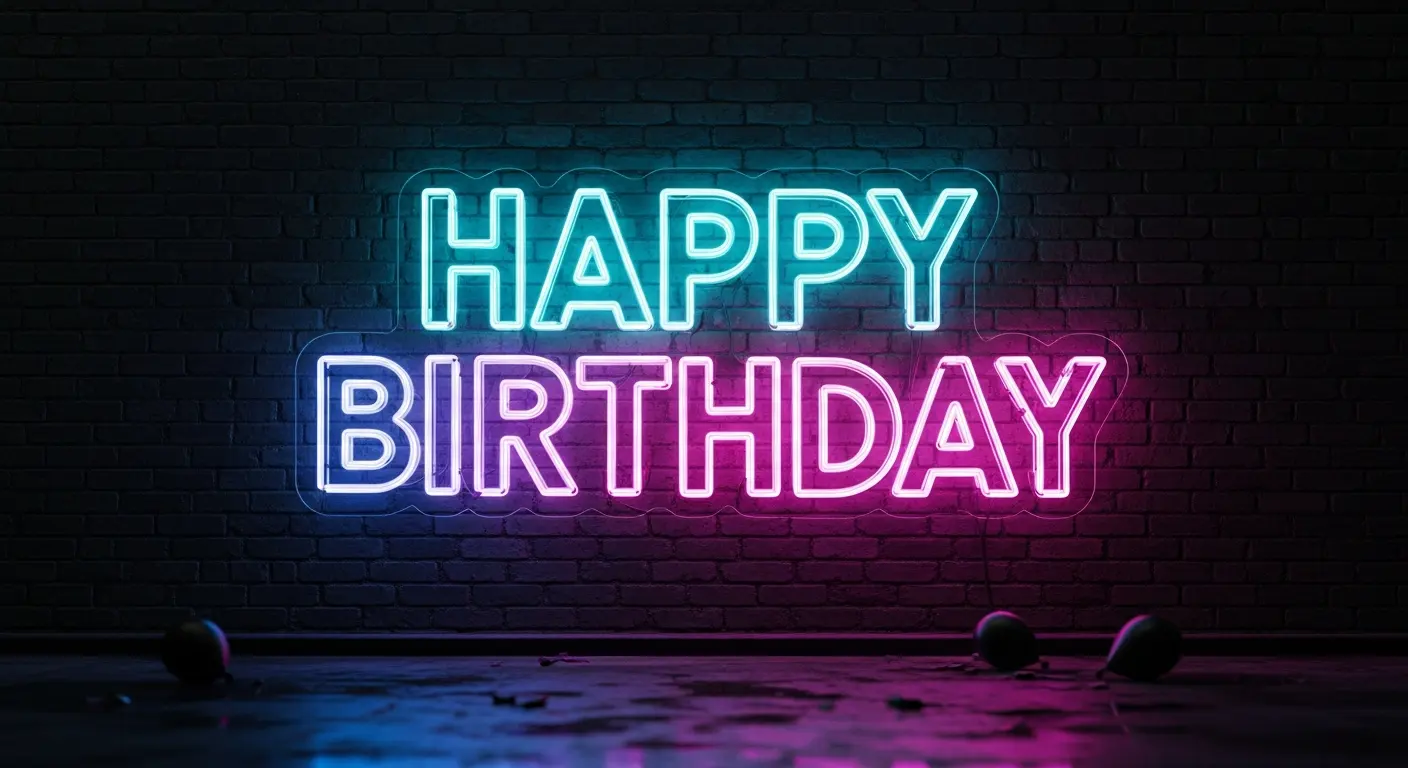
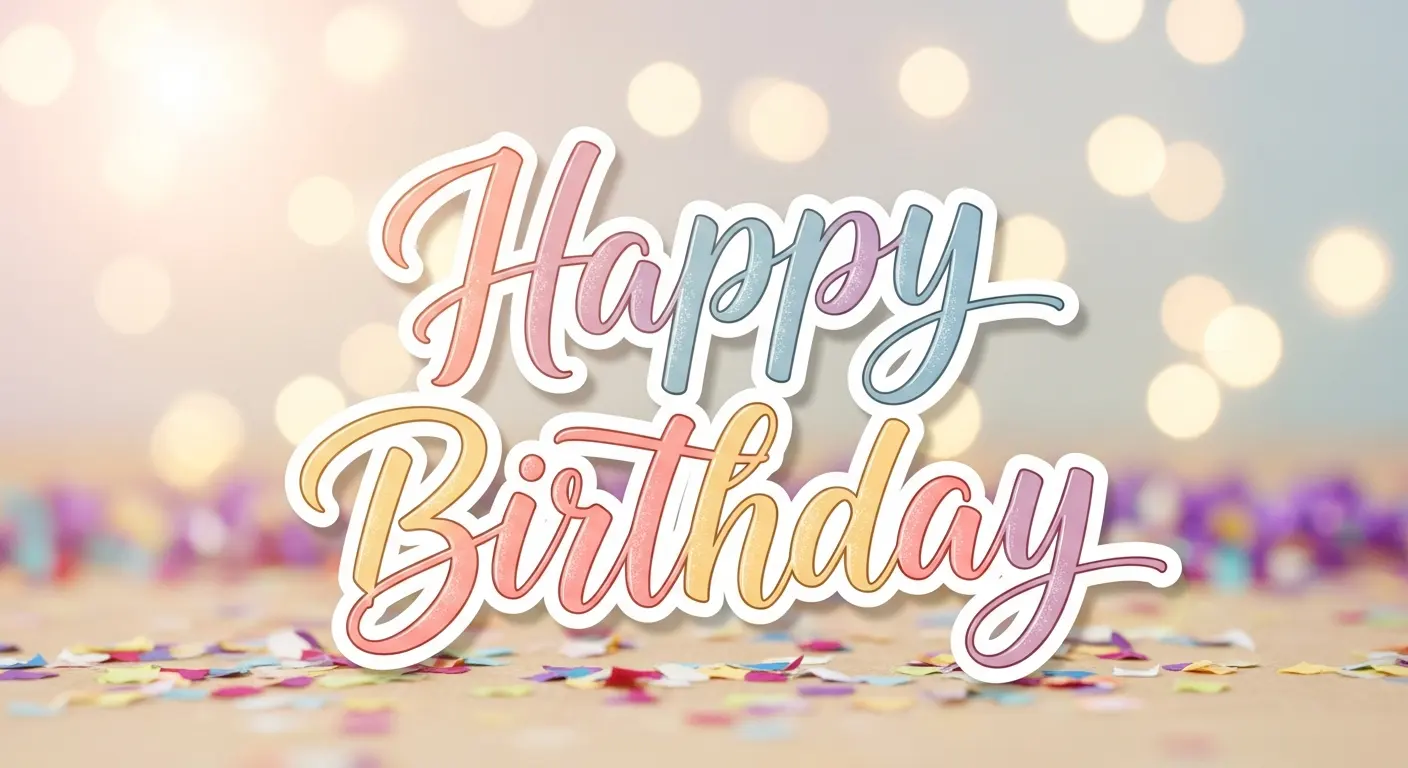
Browse 10 distinct happy birthday font styles—playful scripts, elegant serif, retro display, neon signage, and more—each tuned for invitations, banners, and social posts.
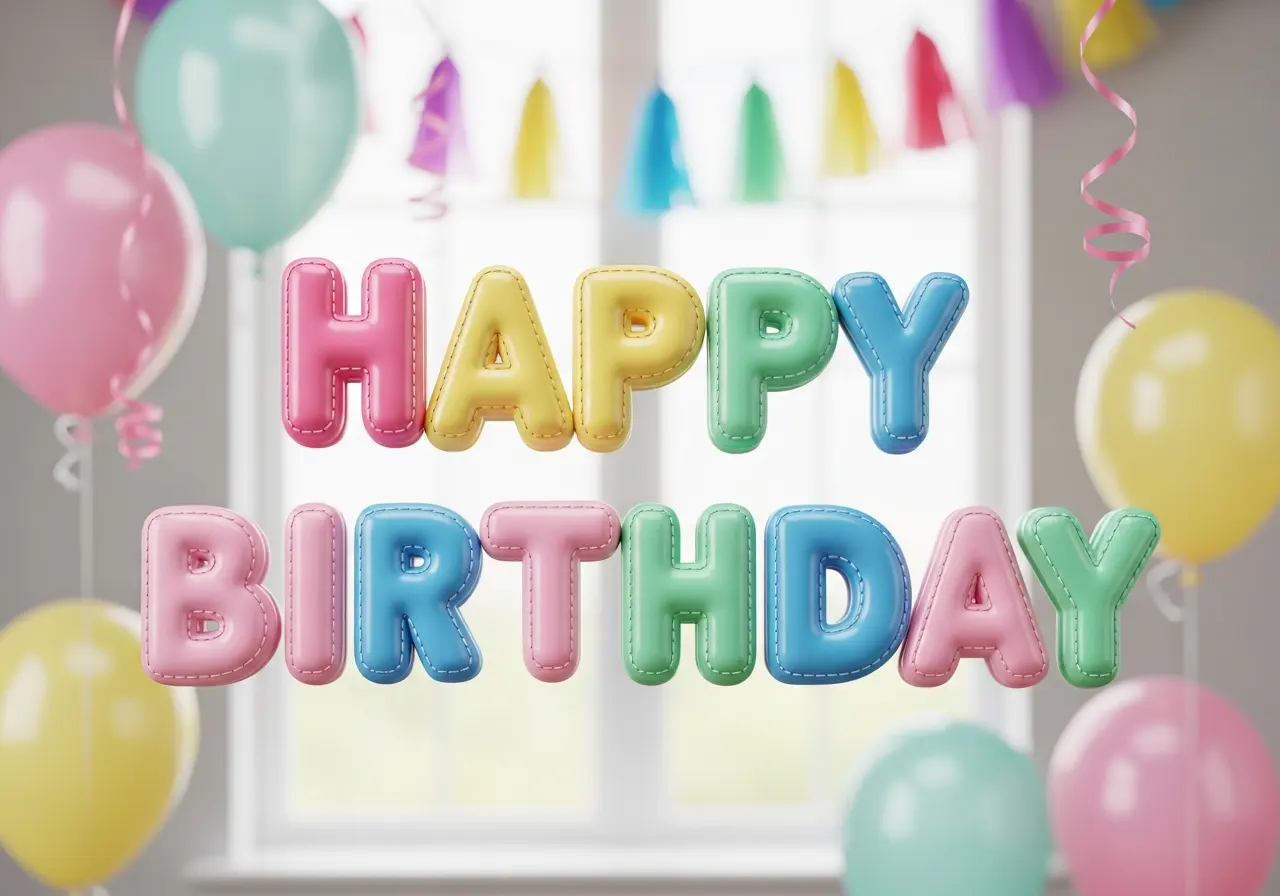
Balloon Block is a rounded display that inflates letters like balloons—an upbeat happy birthday font style ideal for banners and kid-friendly graphics with glossy highlights.
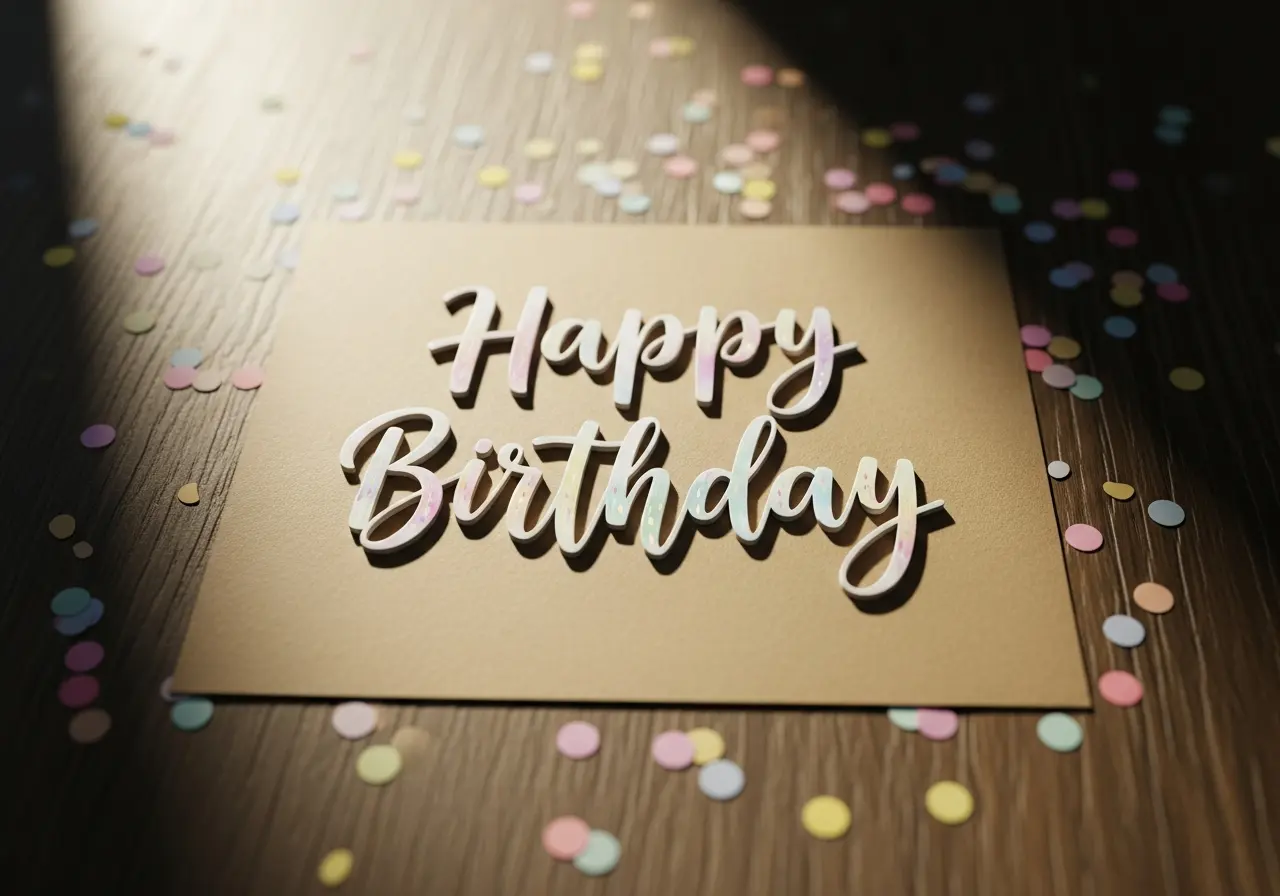
Confetti Script is a joyful hand-lettered style perfect for a happy birthday font. The happy birthday font carries lively swashes and a textured paper feel for invitations and cards.
Neon Party gives a glowing neon sign interpretation of happy birthday font for nightlife-themed celebrations and vibrant social posts with dramatic light.
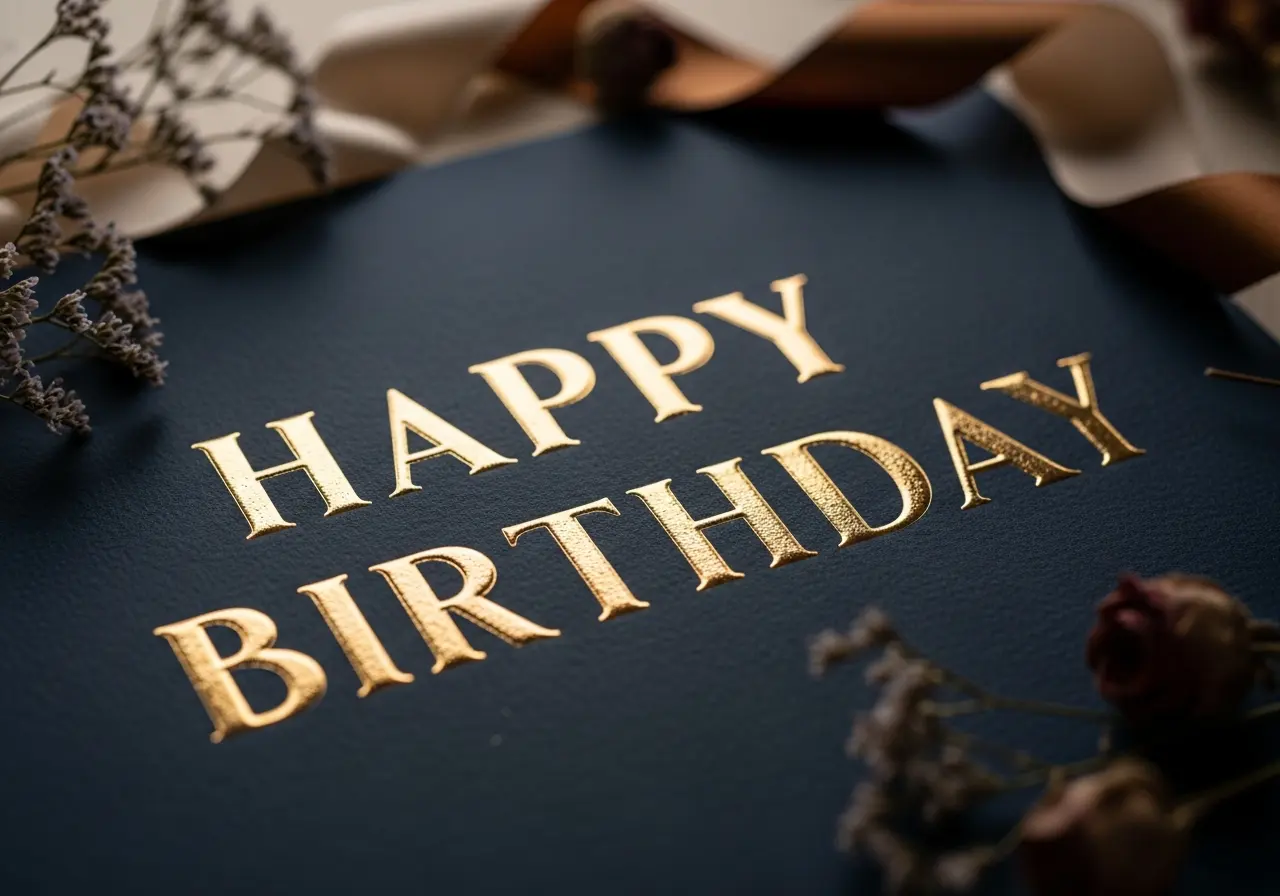
Gold Foil Serif is an elegant serif treatment that turns happy birthday font into luxe invitation typography with metallic textures and refined letterforms.
Retro Party Poster channels vintage display type into a bold happy birthday font, combining mid-century shapes with playful halftone shading for posters and invites.
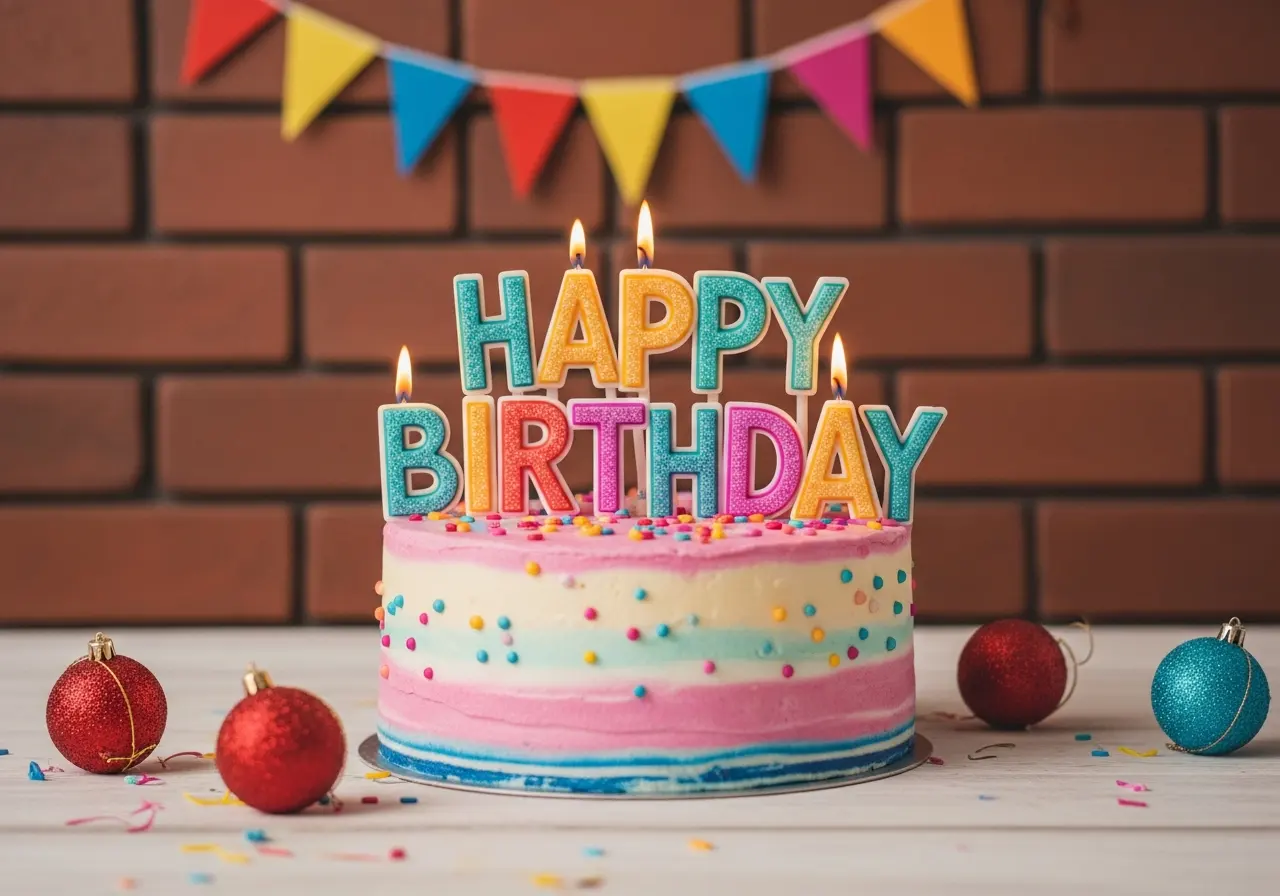
Cake Frosting Script mimics piped icing and works as a tactile happy birthday font for cake toppers, signage, and food-themed visuals with creamy textures.
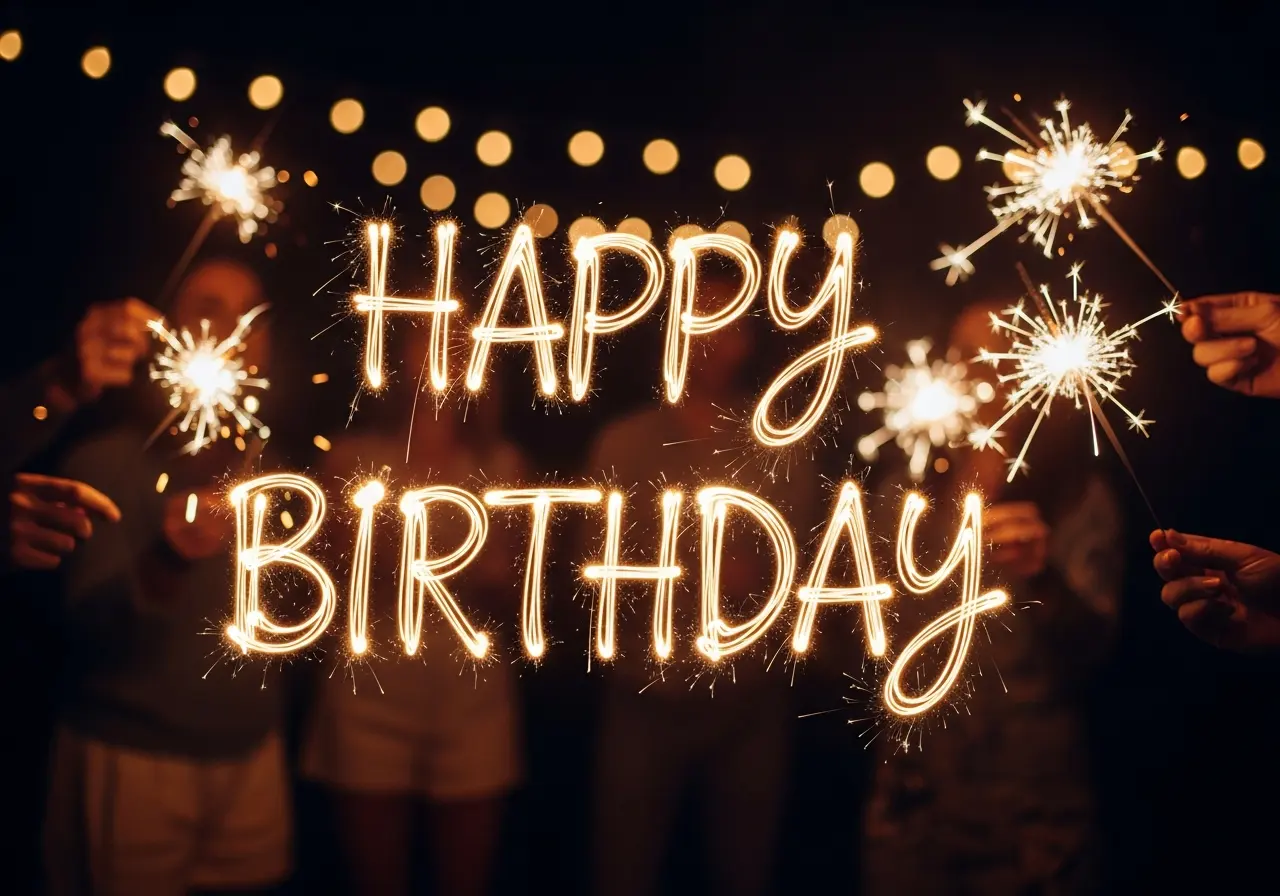
Sparkler Script is an energetic display that turns happy birthday font into streaking light trails—perfect for evening parties and celebratory motion graphics.
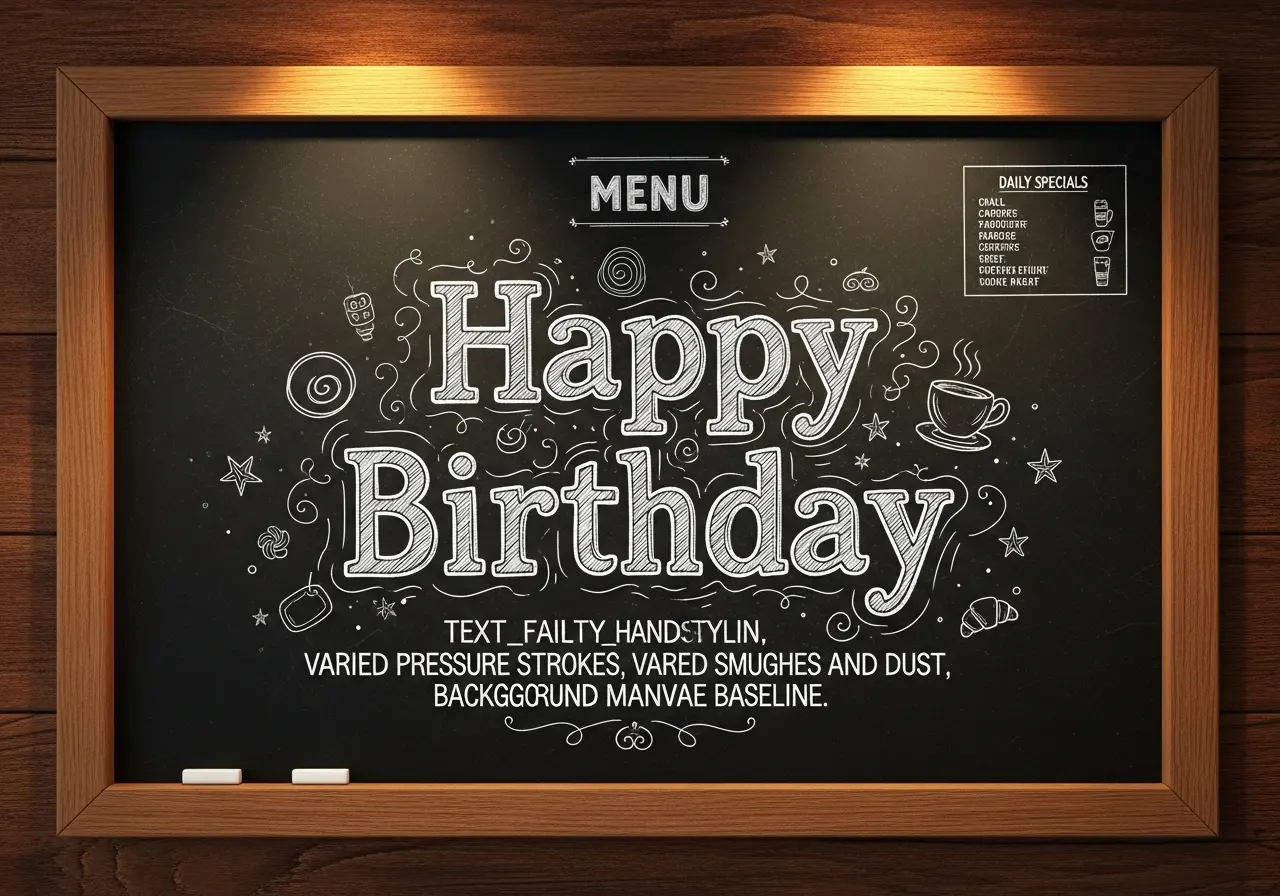
Playful Chalkboard emulates chalk on slate for a casual happy birthday font, ideal for cafés, family events, and rustic signage with charming imperfections.
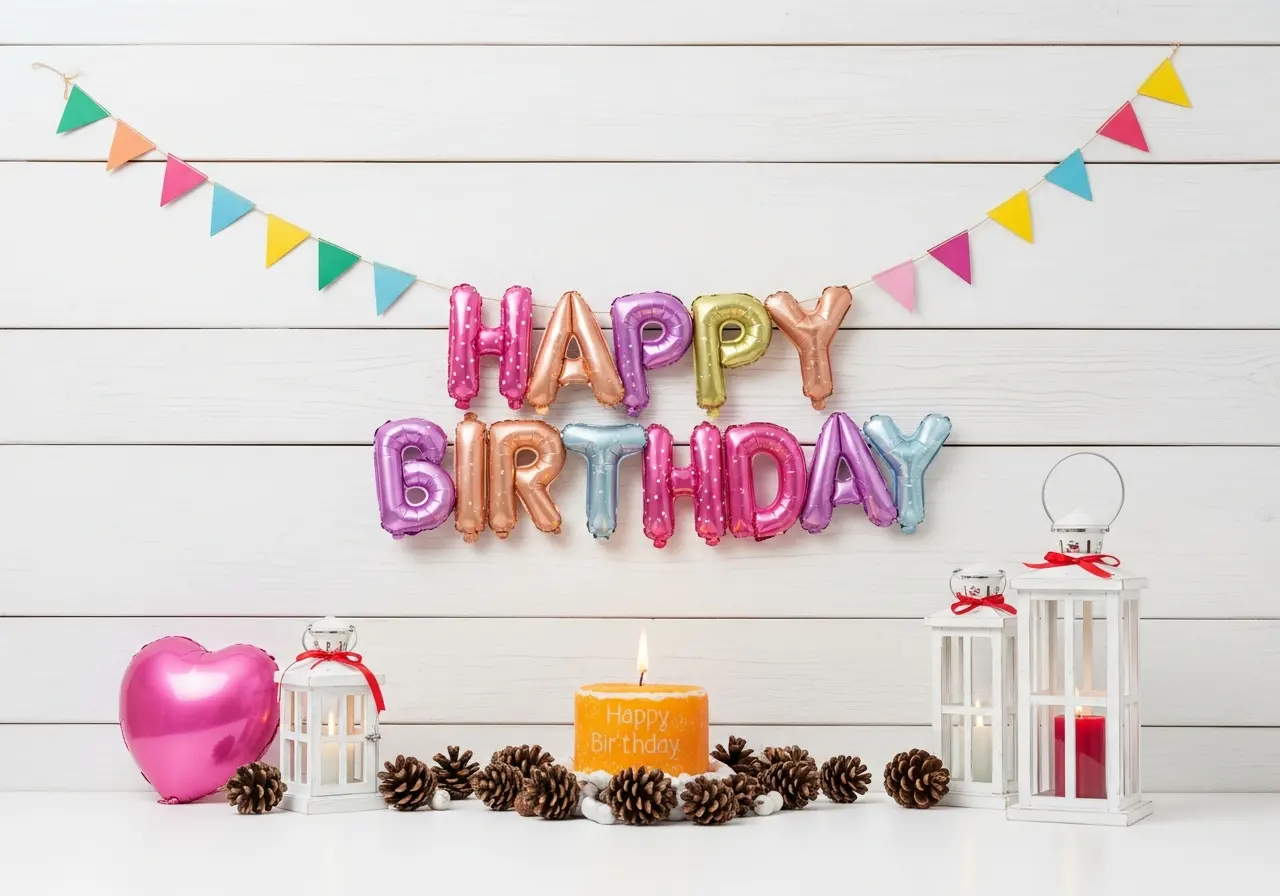
Gilded Calligraphy is an ornate calligraphic happy birthday font that adds flourish and elegance for premium cards and formal celebration materials.
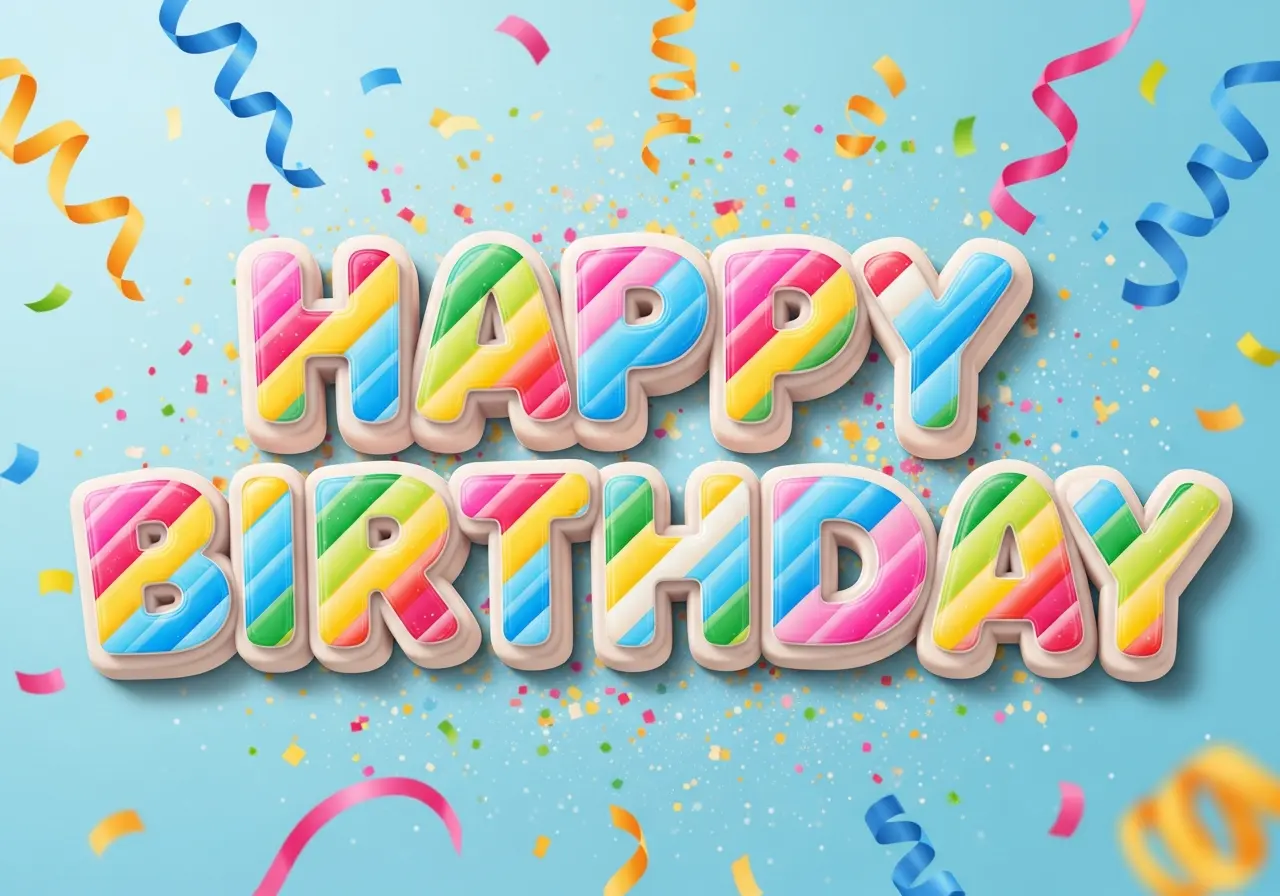
Candy Stripe Display is a fun, high-energy happy birthday font with striped fills and punchy outlines—great for kids' parties and colorful banners.